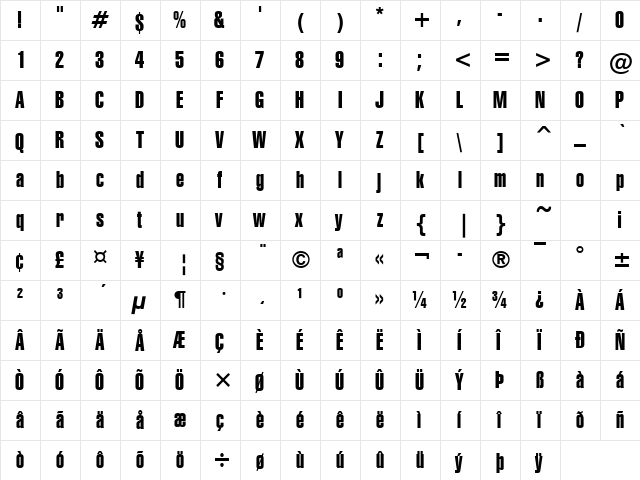
GenevaCmpr Bold
Design Context for GenevaCmpr Typeface
GenevaCmpr offers clean, dependable letterforms without strong stylistic allegiance, making it a practical choice for designers who need flexibility. Its bold stroke weight gives it real presence on the page.